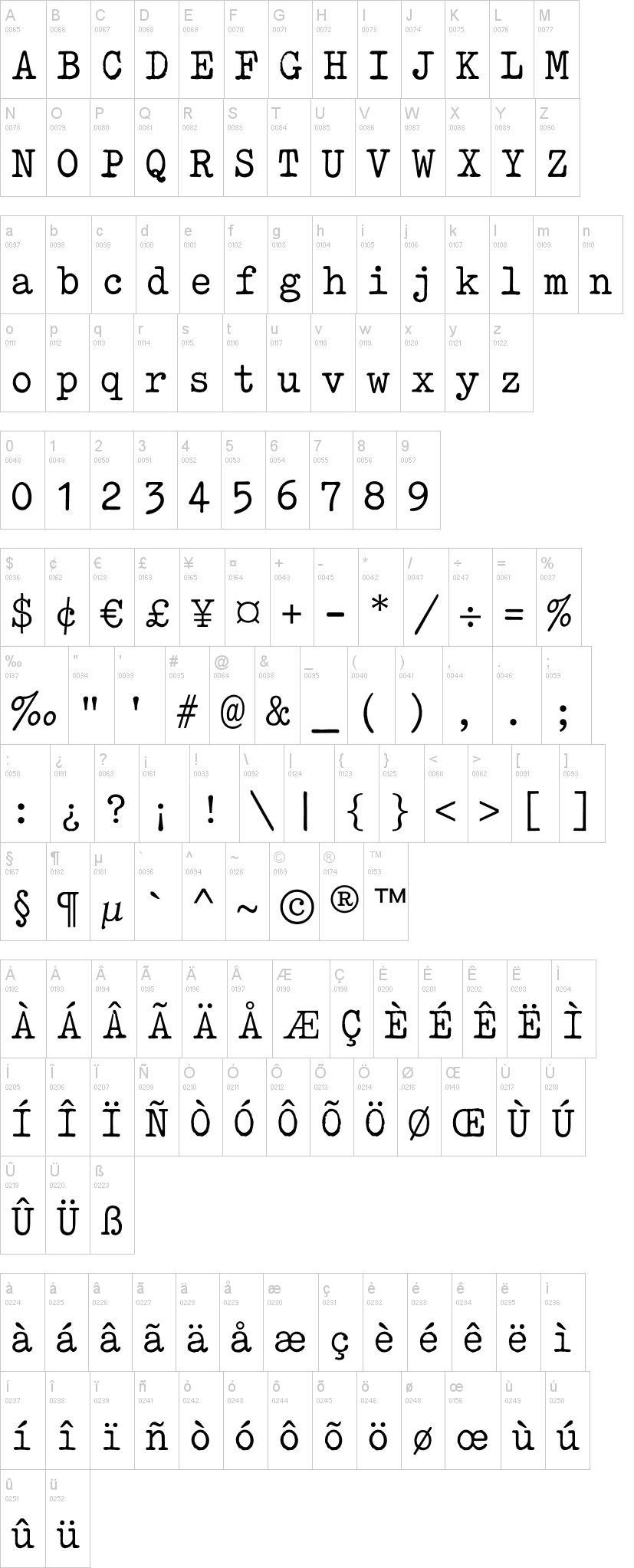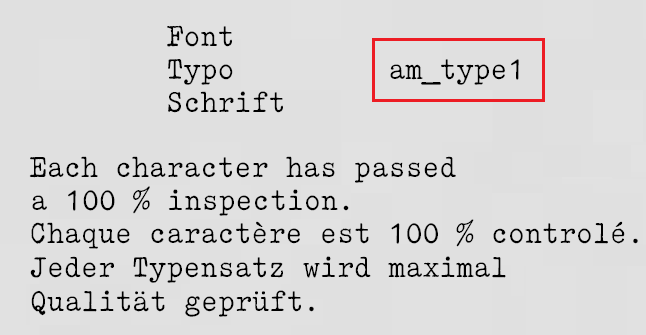
Note of the authorClassical pica typeface Fixed width All characters for writing in Western European languages in the iso-8859-1 and/or windows-1252 standard (= the first 256 Unicode characters, "Latin 1") Free for personal use in the EU countries.